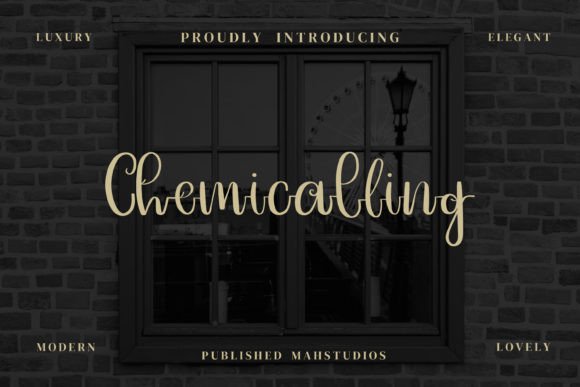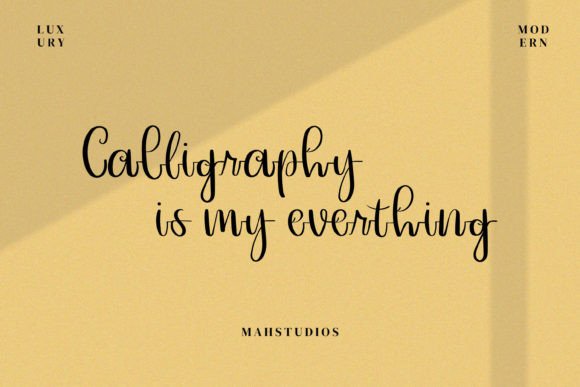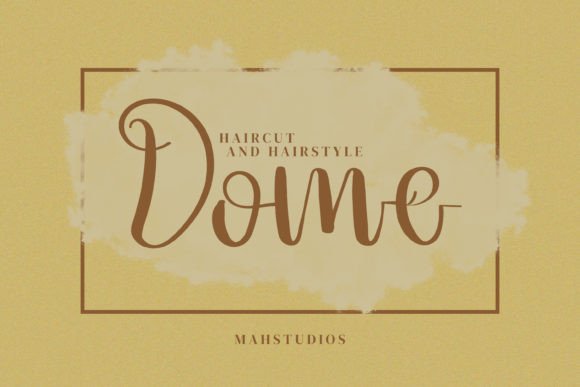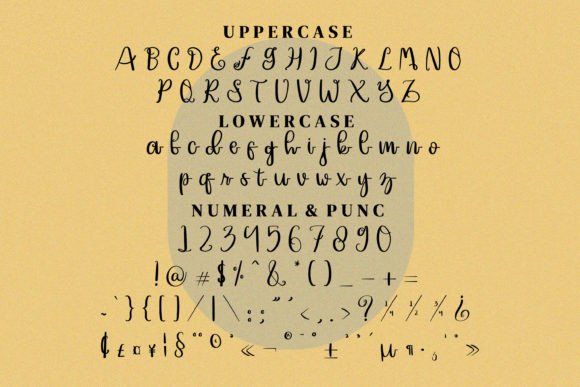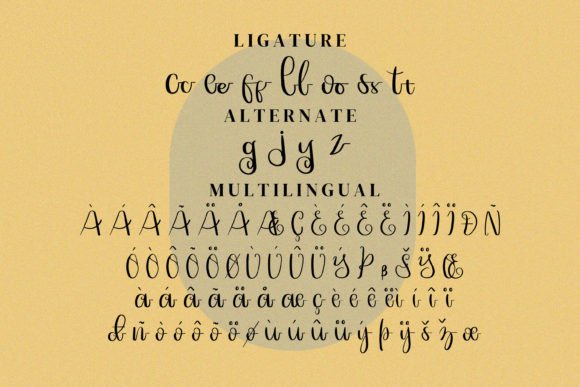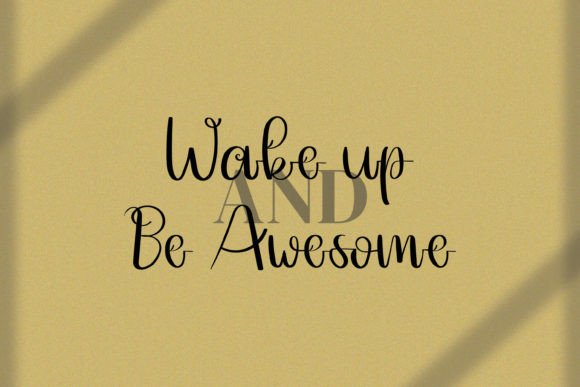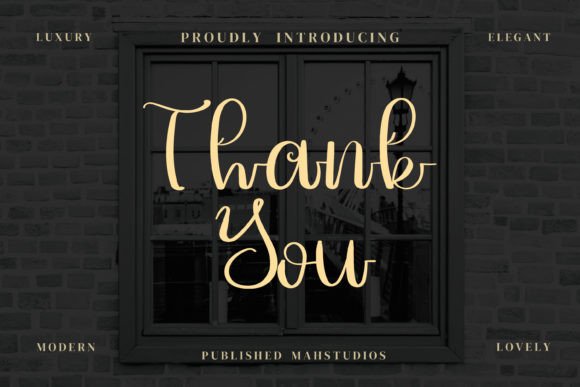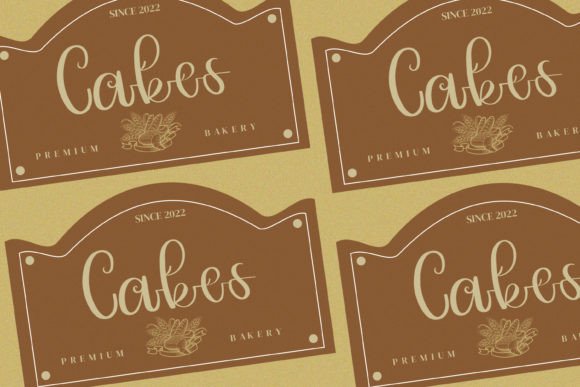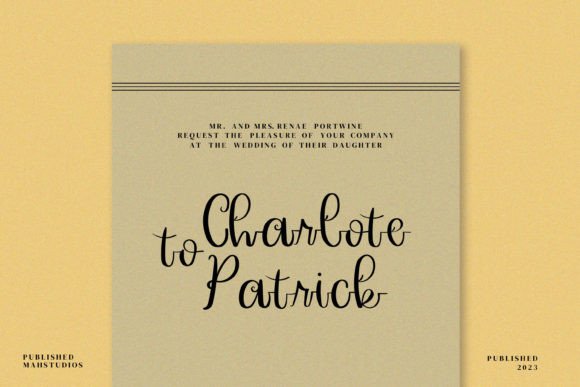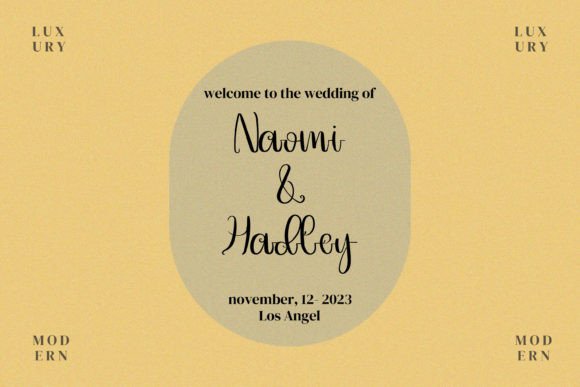
Chemicalling Font
What Is Chemicalling Font?
Chemicalling Font is a cool and unique handwritten script crafted to bring style and creativity to your projects. Each letter features smooth, natural strokes that feel casual yet polished. Because of its distinctive look, this font is perfect for any design needing a personal, handcrafted feel.
You will see how easily Chemicalling makes your creations stand out with personality and flair.
Chemicalling is a versatile font you can apply across many design projects. For example, it’s ideal for logos and branding. The handwritten style adds authenticity and makes any brand more approachable.
In addition, it works beautifully for greeting cards and invitations. Whether you design for weddings, birthdays, or special events, Chemicalling adds an elegant, friendly touch.
You can also use it for social media graphics and quotes. The smooth script creates eye-catching posts that engage your audience.
When you create product packaging and labels, Chemicalling brings a modern, handcrafted feel that looks premium and fresh.
Moreover, it’s great for posters, website headers, and personal projects. Even minimalist layouts become more unique with this font.
Why Should You Choose Chemicalling Font?
There are plenty of reasons to consider Chemicalling for your next design. First, it’s easy to read, even with its handwritten flair. Whether you use large titles or smaller text, every letter remains clear and balanced.
Also, Chemicalling pairs beautifully with clean serif or sans-serif fonts. This helps you build modern, cohesive layouts effortlessly.
Because it’s fully PUA encoded, you can access all glyphs, alternates, and swashes without extra tools. Customizing your text becomes quick and smooth.
Designers love that it looks polished right out of the box, saving time while delivering professional results.
Chemicalling Font brings style and authenticity to every project. For example, when you want your designs to feel approachable and distinctive, this font makes it easy.
Even minimalist layouts look more engaging with Chemicalling’s smooth, handcrafted strokes. Whether you create branding, invitations, or social content, your work will stand out.
Using a premium handwritten script also shows your attention to detail and dedication to quality. This builds trust with your audience and makes your designs more impactful.
Chemicalling Font is more than just a typeface—it’s a creative tool that helps you share ideas with clarity and character. From logos and packaging to cards and quotes, this font adapts easily and leaves a lasting impression.